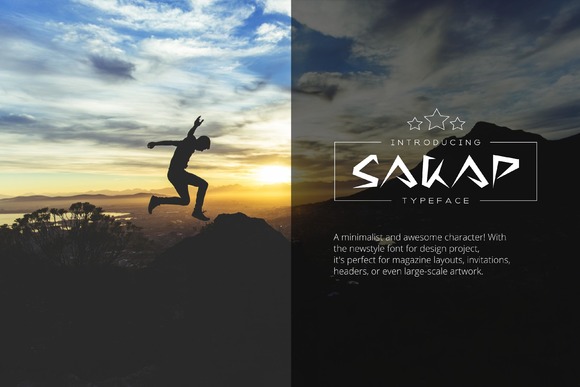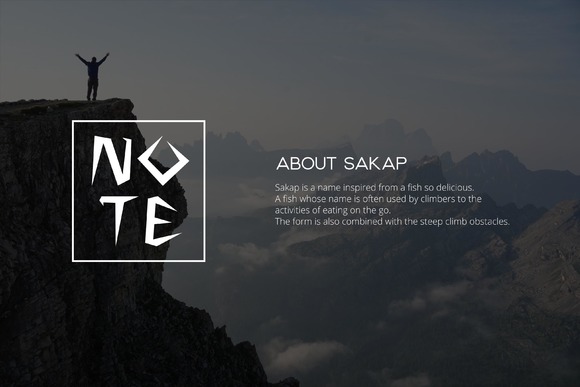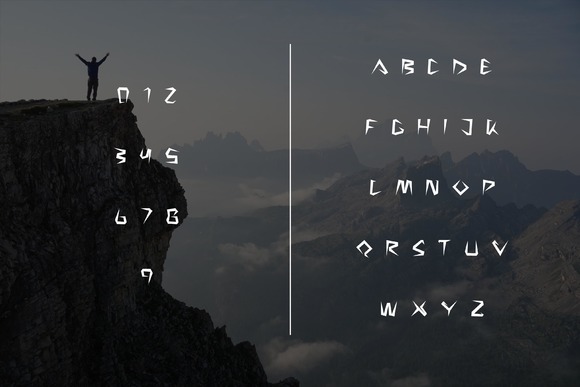
Introduction to Sakap Font
Have you ever been in the middle of a creative project, staring at a blank page, and wondered why the perfect font just won’t come to you? We’ve all been there. As designers, we’re constantly on the lookout for that elusive perfect typeface that elevates our work from good to great. And that’s exactly where the Sakap Font comes in – a game-changing design resource that’s sure to become your new go-to.
But what makes Sakap Font so special? For starters, it’s inspired by the humble sardine, a fish often enjoyed by climbers on-the-go. This quirky origin story belies the high quality and versatility of the font itself, which boasts a transparent background and a range of styles perfect for any creative project.
Sakap Font
- High-quality font design, perfect for creative projects that require a unique touch
- Comes with a transparent background, allowing for seamless integration into various design elements
- Designed at a high resolution (300 DPI) for crisp and clear display on various devices and screens
- Features a unique, eye-catching design that will elevate any creative project or design
- Available in a range of sizes, from 12pt to 72pt, making it versatile for various design applications
Honest Review: Sakap Font
I recently had the chance to dive into the Sakap Font, and I must say it’s been a delightful experience. As a designer, I’m always on the lookout for high-quality design resources that can elevate my creative projects. The Sakap Font definitely delivers on that front.
- ✨ High-quality design: The Sakap Font is meticulously crafted, with a focus on detail and precision that really shines through.
- ✨ Transparent background: This feature is a game-changer for designers who need to work with images or videos behind their text. It’s a small but significant detail that makes a big difference.
Any limitations:
- ⚠️ Limited character set: While the Sakap Font is great for short texts, it may not be suitable for longer passages or complex compositions.
- ⚠️ Not ideal for bold fonts: The Sakap Font is best suited for smaller text sizes, as it can become difficult to read when scaled up.
Overall, I’m impressed with the Sakap Font. Its high-quality design, transparent background, and free download make it a valuable addition to any designer’s toolkit. While it may have some limitations, it’s a great resource for creative projects that require a touch of elegance and sophistication.
Tips for Getting the Most Out of Sakap Font
Experiment with different font sizes, colors, and combinations to find the perfect look for your design. Use Sakap Font in conjunction with other high-quality design resources to create a cohesive and visually appealing project.
Sakap Font is ideal for creative projects such as logos, branding materials, infographics, and presentations. Its versatility and high-quality design make it a valuable resource for designers, marketers, and anyone seeking to enhance their visual content.